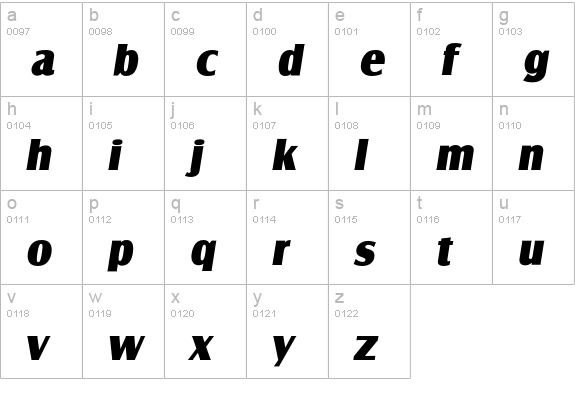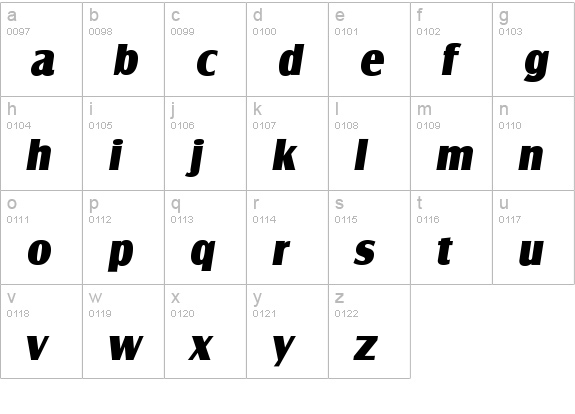
Salzburg-ExtraBoldIta is a striking and bold font that exudes confidence and strength. Designed with a touch of elegance, this font is perfect for making a bold statement in any design project. With its thick and dramatic strokes, Salzburg-ExtraBoldIta commands attention and demands to be noticed. This font is not only visually captivating but also incredibly versatile. It can be used for a wide range of designs, from headlines and titles to logos and branding materials. The italicized style adds a touch of sophistication, making it perfect for luxury and high-end designs. One of the best things about Salzburg-ExtraBoldIta is that it is freely available to download at FontsMarket.com. This means that you can easily access and use this font without any restrictions or limitations. Whether you are a professional designer or a casual enthusiast, you can enjoy the benefits of this font without having to spend a dime. The clean and crisp lines of Salzburg-ExtraBoldIta make it highly readable, even at smaller sizes. This makes it a great choice for body text in print materials such as magazines, brochures, and books. Its legibility ensures that your message will be conveyed clearly and effectively. Salzburg-ExtraBoldIta is a font that effortlessly combines strength and elegance, making it a standout choice for any design project. With its free availability at FontsMarket.com, you can easily add this font to your collection and unleash its power in your next creative endeavor. So why wait? Download Salzburg-ExtraBoldIta now and elevate your designs to new heights.